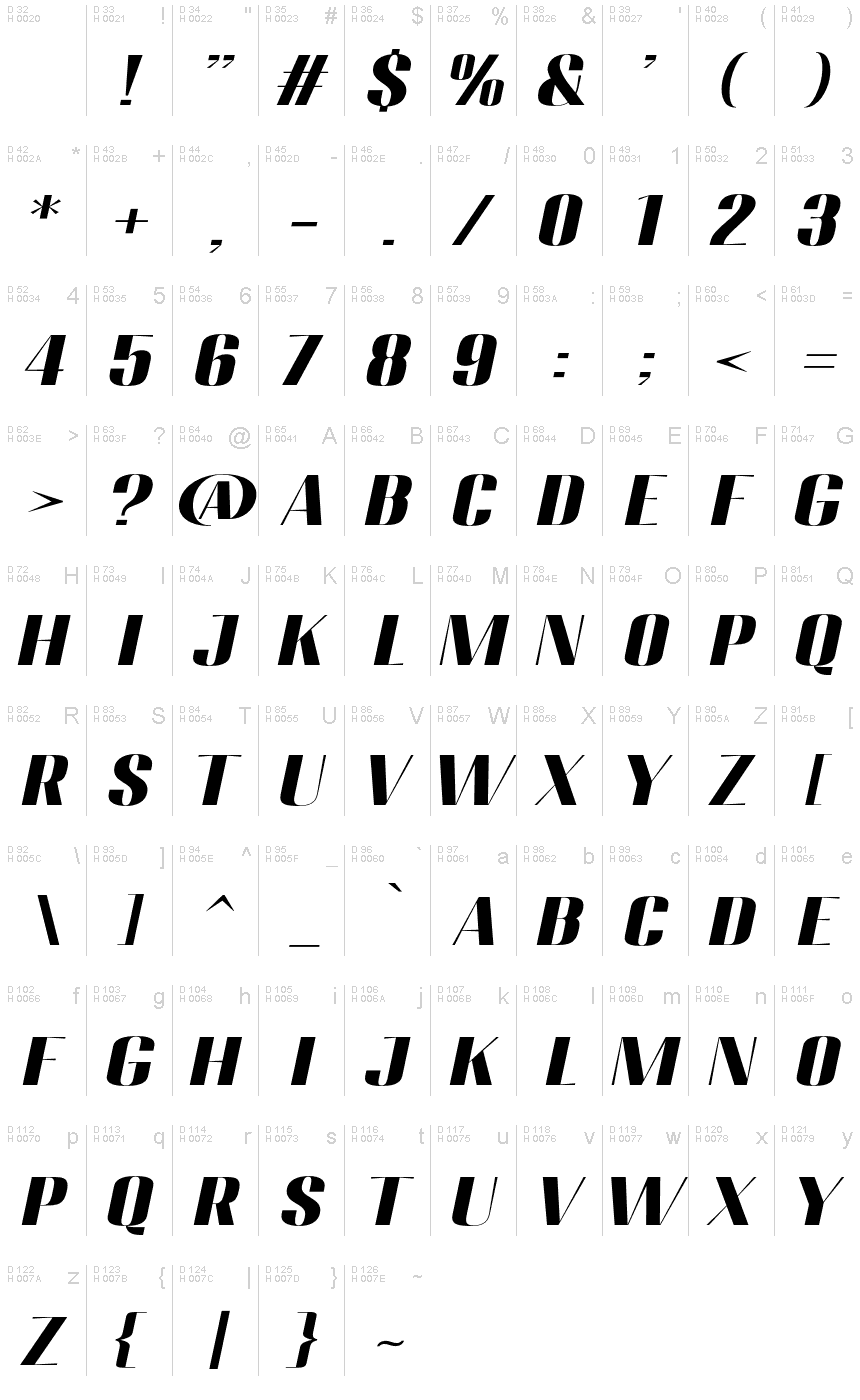
Migha-BlackExpandedSlant
Migha Black Expanded Slant is a stunning extra-bold sans serif font from the talented team at Seniors Studio. Its unique slanted design and expanded width make it perfect for creating bold headlines and eye-catching designs that demand attention. With its versatile style, Migha Black Expanded Slant is suitable for a variety of projects, from modern websites to edgy magazine layouts. Use it to create impactful logos, advertising campaigns or even product packaging. Whether you're looking to add an edge to your brand or simply want to make a statement, Migha Black Expanded Slant is the perfect choice for any project that requires a bold and powerful font.